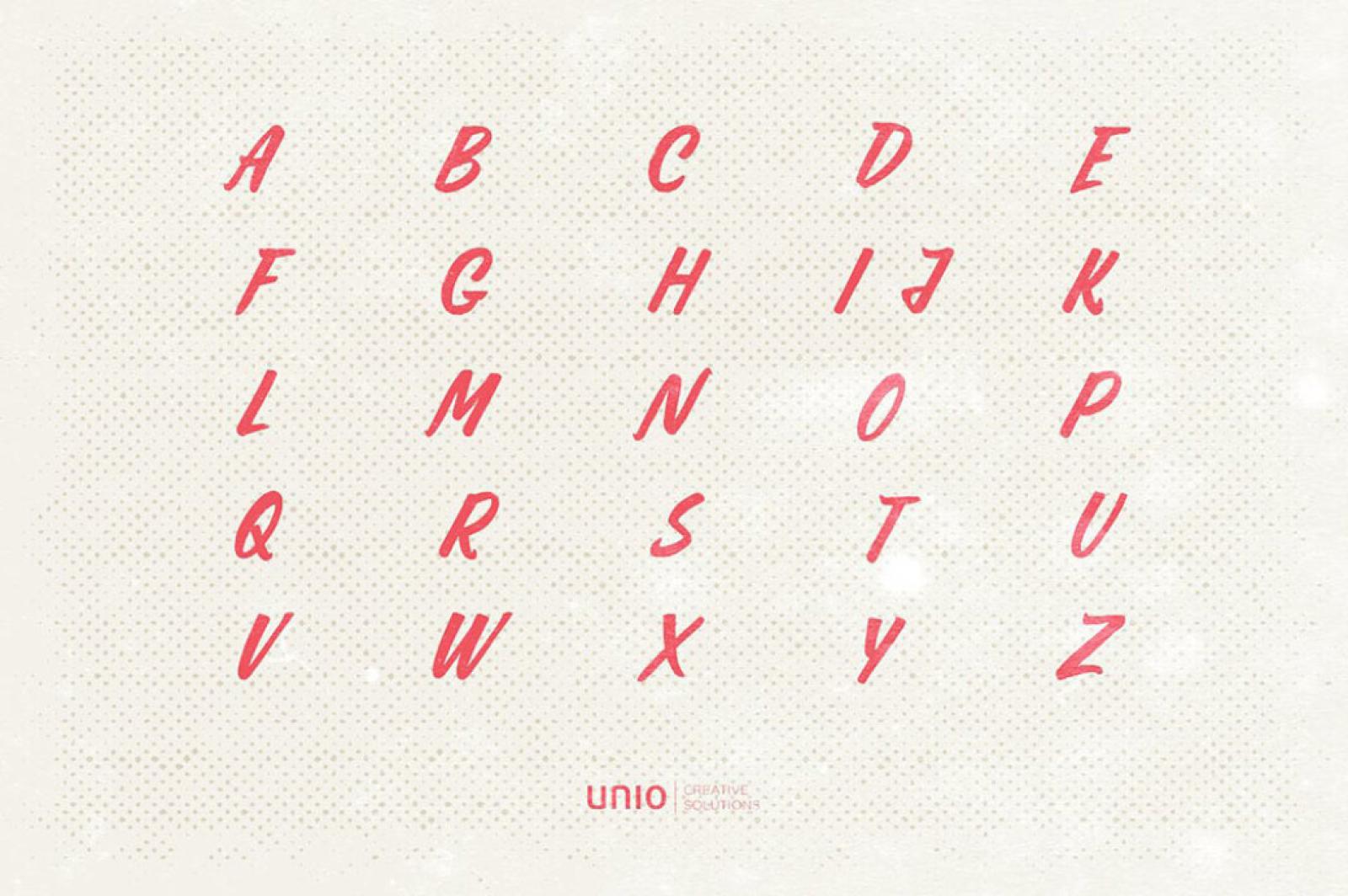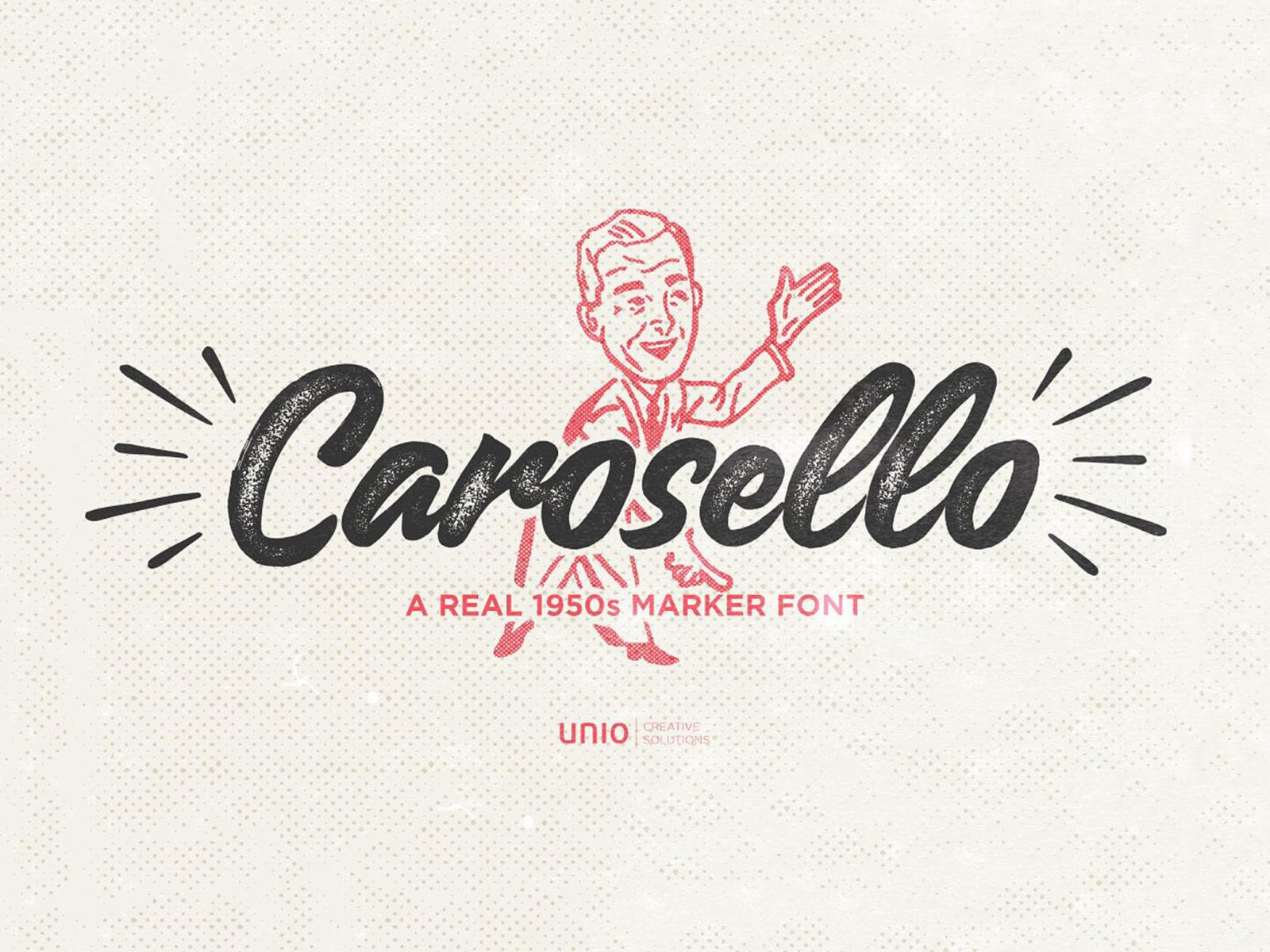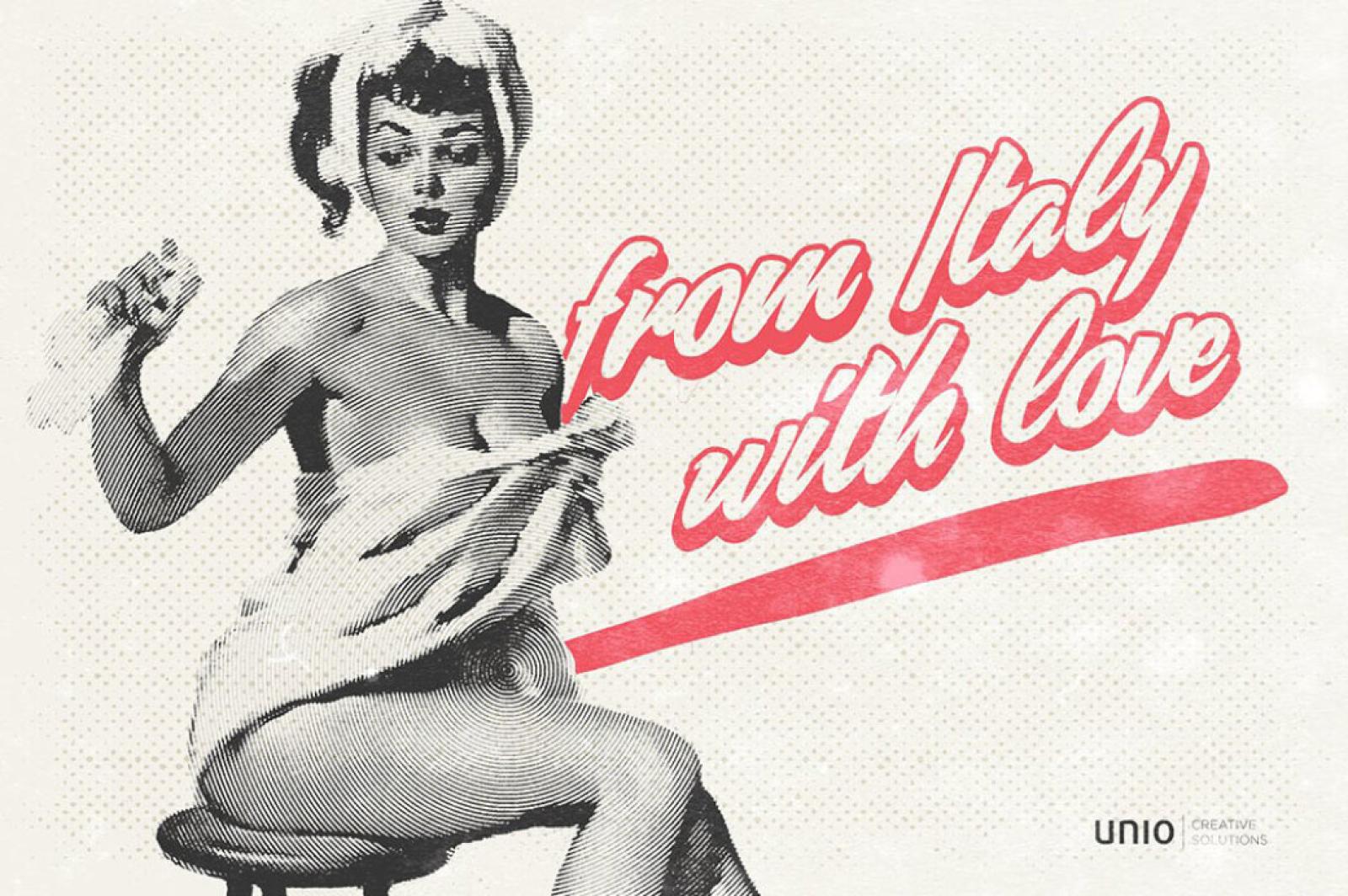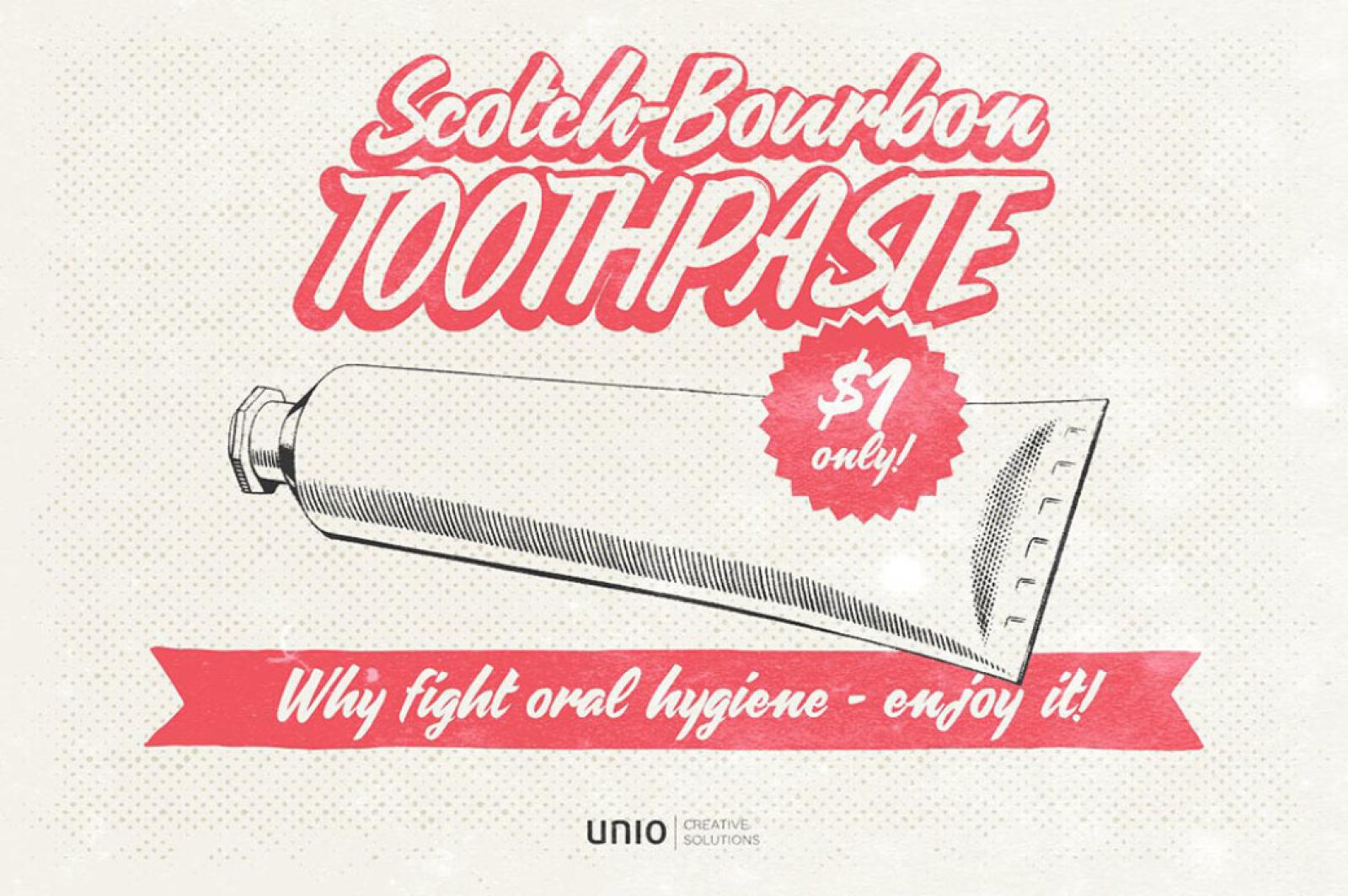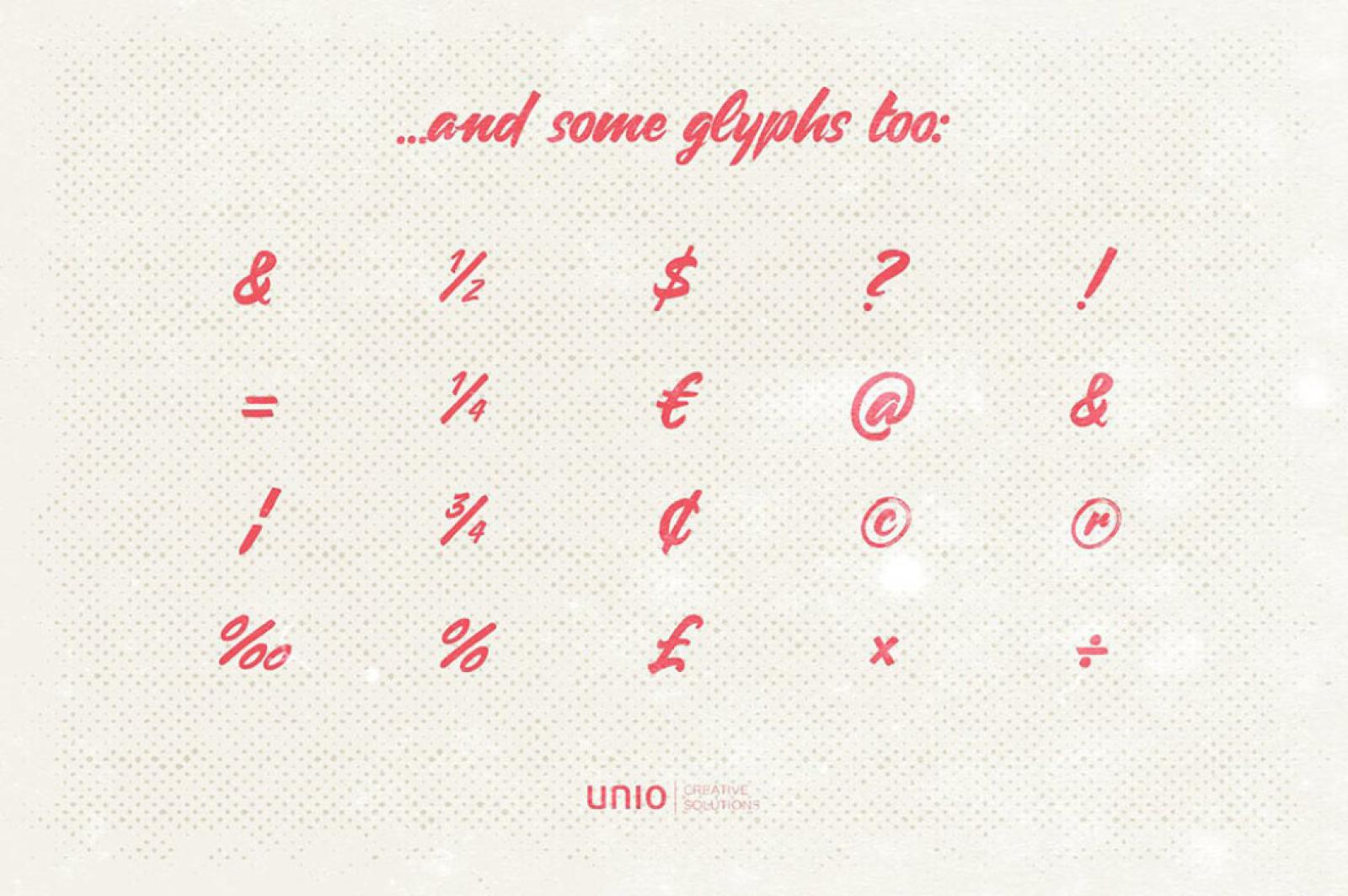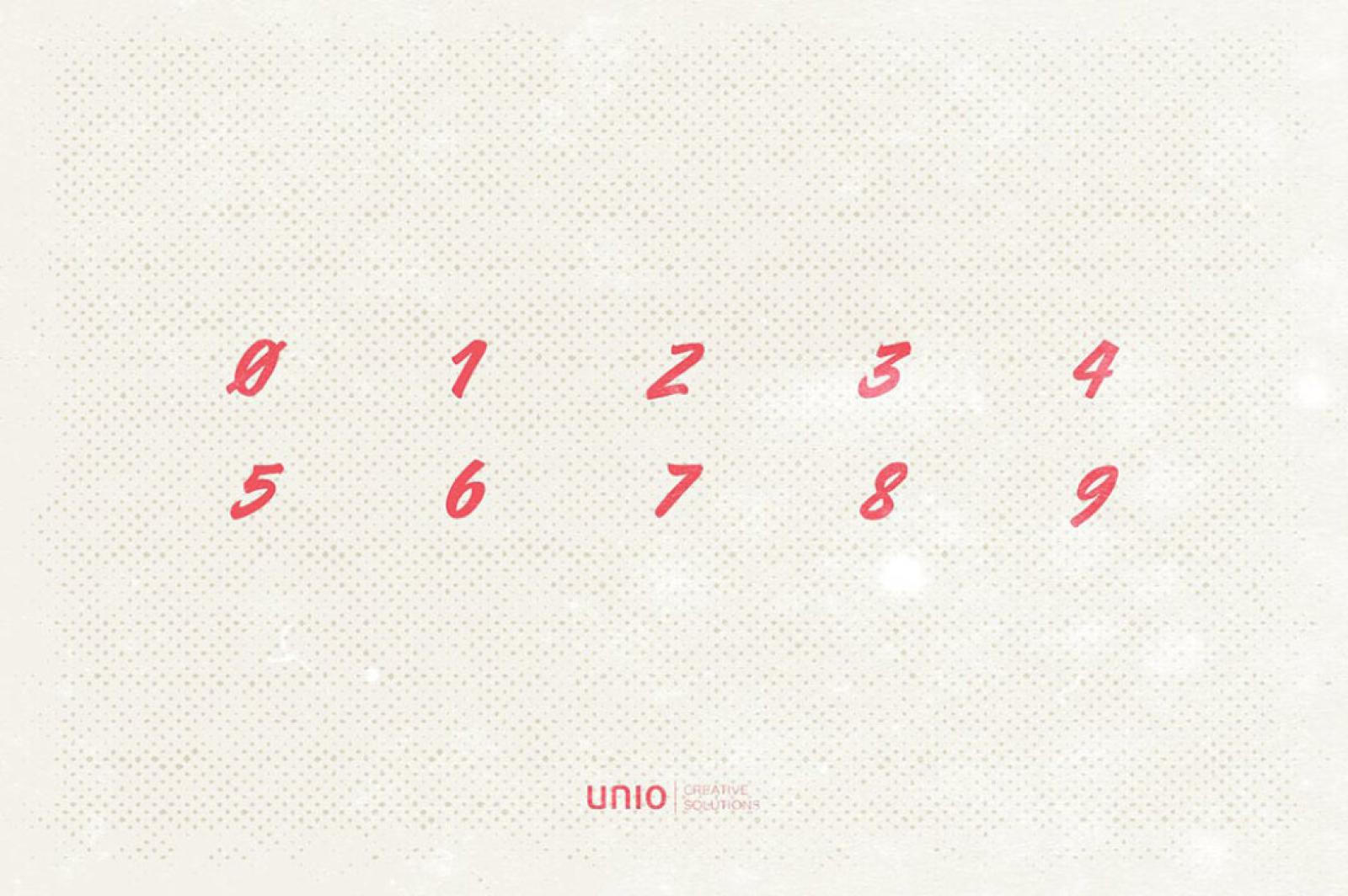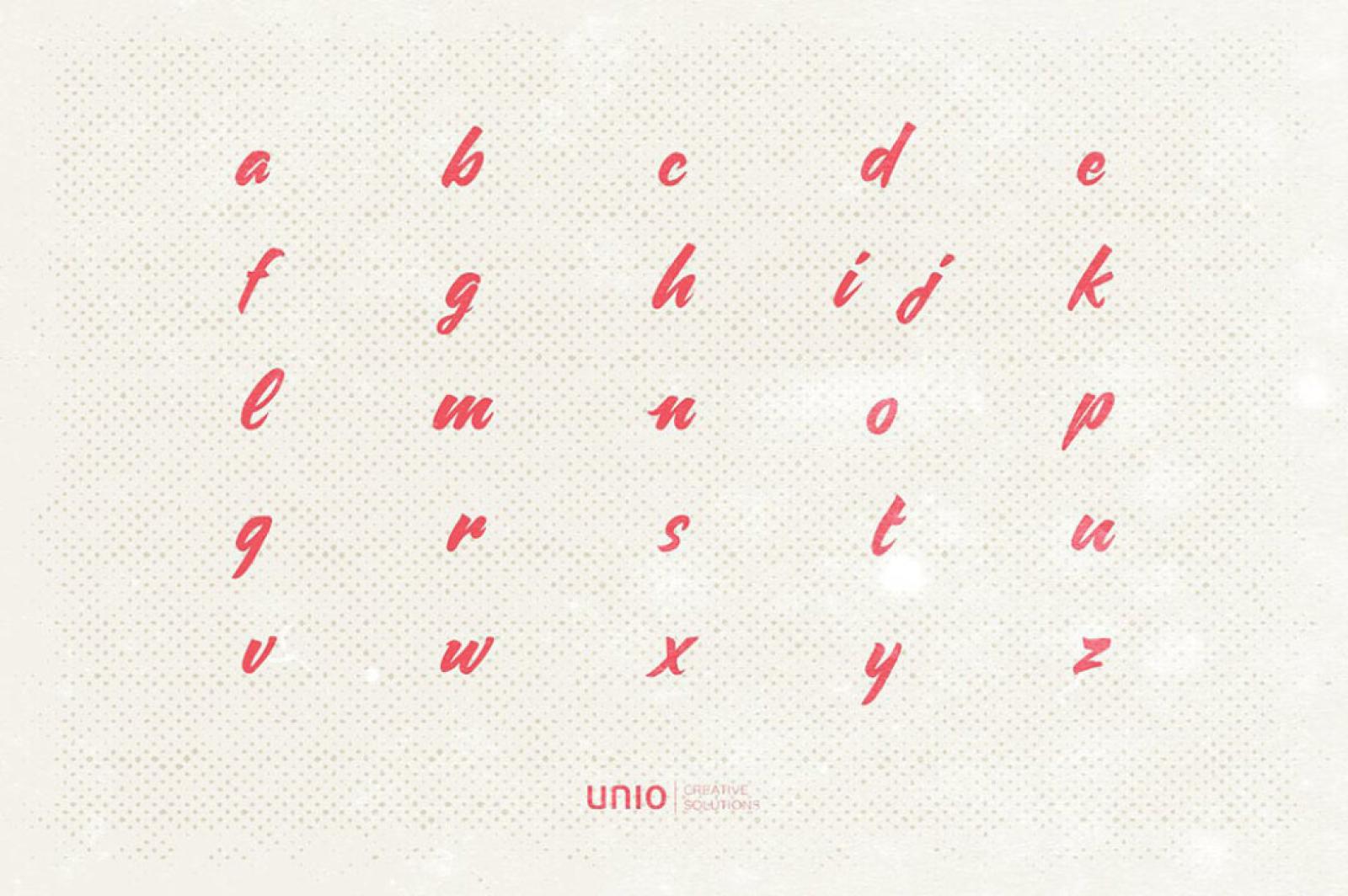
Carosello Vintage Font
Our biggest holiday wish is to make our freebies as big and useful as possible. We're happy to give you the Carosello Vintage font, created to give a genuine hand-written impression to your work.
It will be a huge helper to anyone who's into a vintage style. Time-traveling is not invented yet, but this typeface is likely to bring you back to the 50s and pour retro vibes over you. Apart from the alphabet in upper and lowercases, it's sprinkled with glyphs of any kind to complement your creation with small details. Do you already see them as a part of your branding design? Or maybe a stylish apparel piece? Anyway, the usage of this font is out of the question!